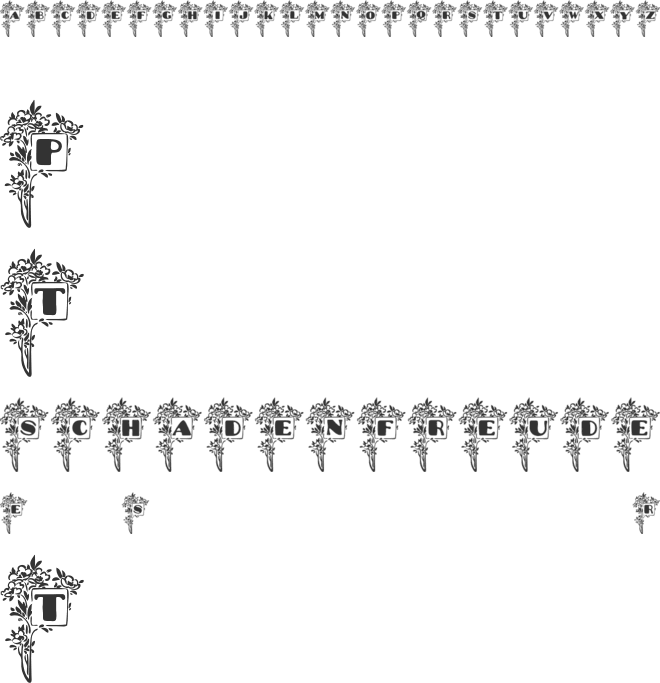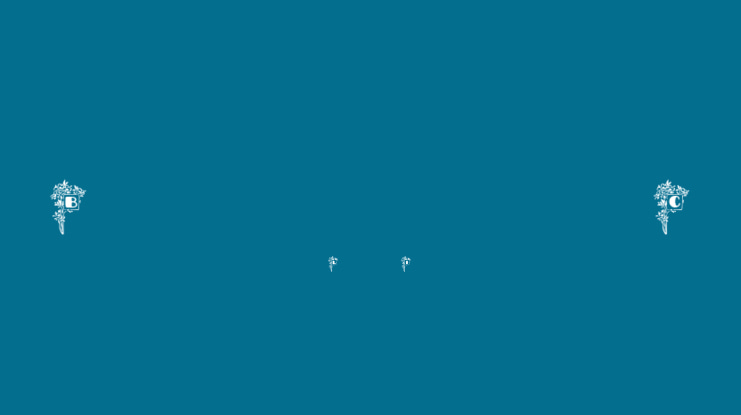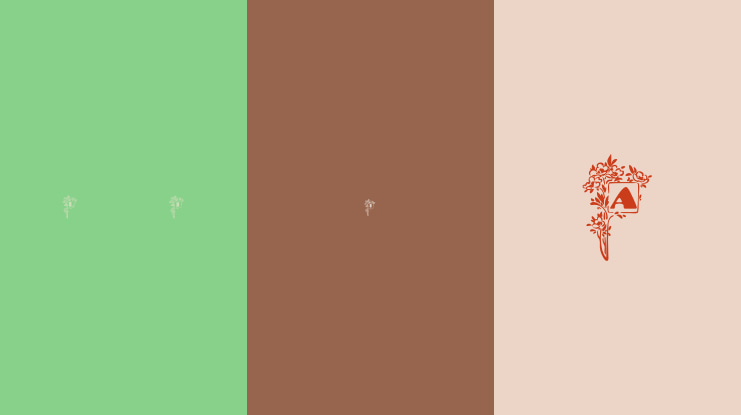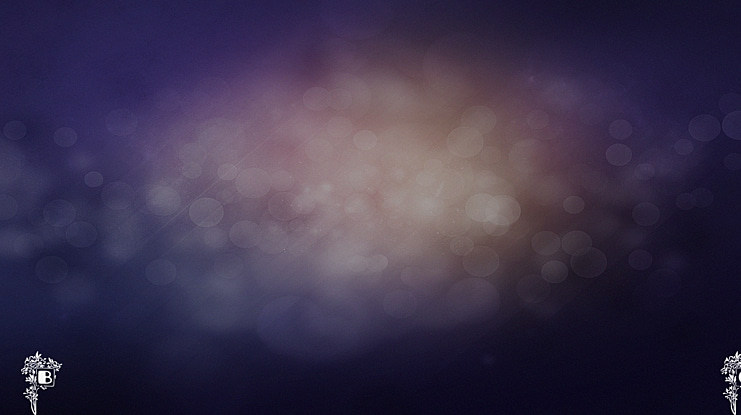
Blumenstrauss Caps Font
One evening fun in creating this Art Nouveau font! I hope you enjoy it! The font is public domain, free for all uses, commercial and private.